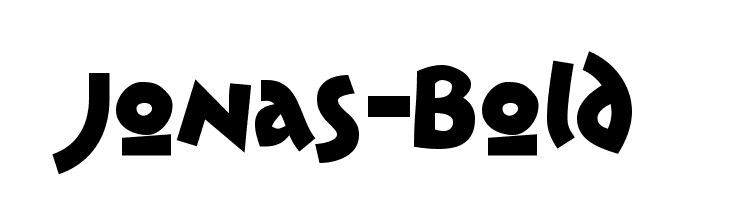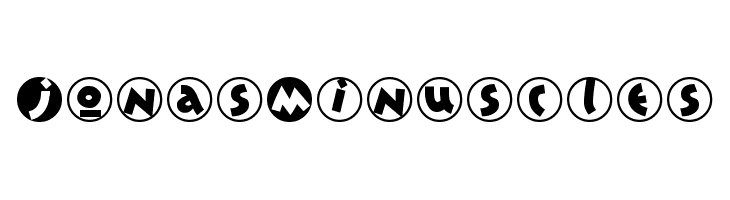
A playful, bold font with characters enclosed in solid circles, offering a whimsical and eye-catching style.
A bold, playful font with dynamic, hand-drawn style letterforms.